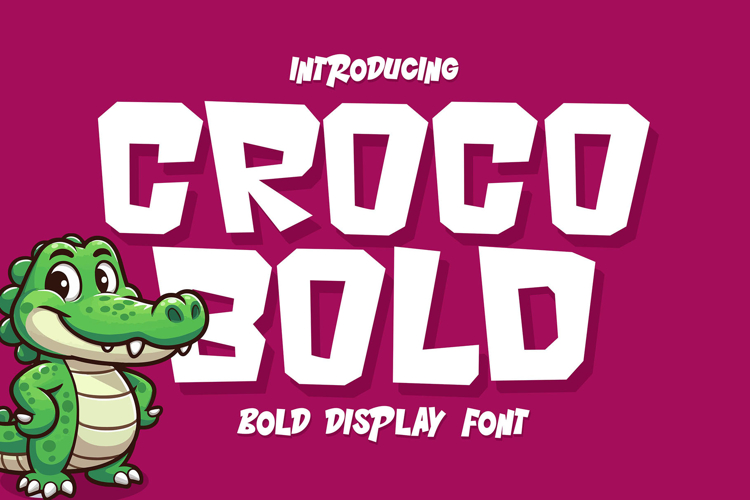
Croco Bold - Playful Display Font
Croco Bold is a vibrant and playful display font that brings a splash of fun to your designs. Its unique, chunky letters are perfect for adding a whimsical touch to any project, making it an ideal choice for children’s products, posters, and playful branding.
🎈 Fun and Engaging: With its rounded edges and bold appearance, Croco Bold captures attention and invites creativity. It’s designed to make your text pop, ensuring that your message stands out with a cheerful and friendly vibe.
🌟 Versatile Applications: Whether you’re designing a lively invitation, eye-catching signage, or playful packaging, Croco Bold adapts effortlessly to a variety of uses. Its joyful character makes it perfect for both digital and print media, ensuring your designs remain captivating.
🎉 User-Friendly: Croco Bold is easy to work with, allowing designers to create vibrant, engaging layouts quickly. Its clear readability combined with a sense of fun makes it a must-have for any creative toolkit.
Bring your projects to life with Croco Bold—the playful display font that adds a touch of joy and excitement wherever it’s used!